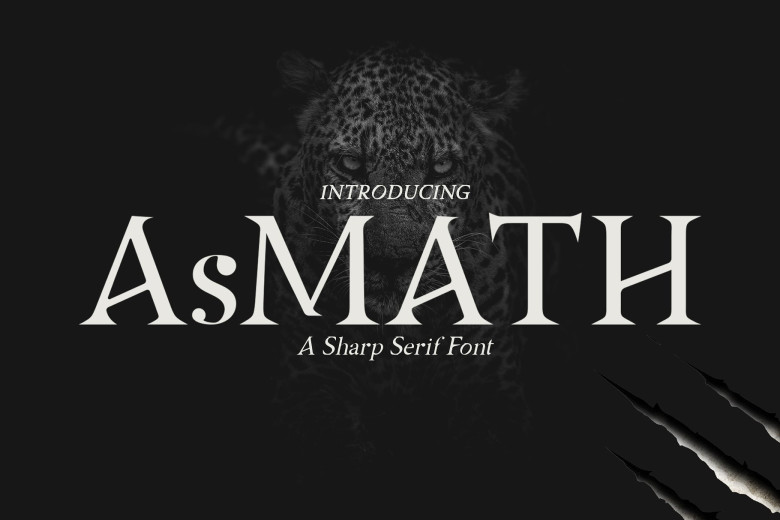
Asmath Sharp Serif Font
Asmath is a Sharp Serif, It is designed with personality style and very strong. You will have more choice for your design! It is designed and shared by D&K_project. ASMATH is a sharp formal serif, useful in any situation. Beautiful yet practical, Asmath is designed for (Magazine, Logo, Poster etc), excellence in Regular Uppercase and Lowercase text-heavy settings while doubling as a capable and strong display typeface.